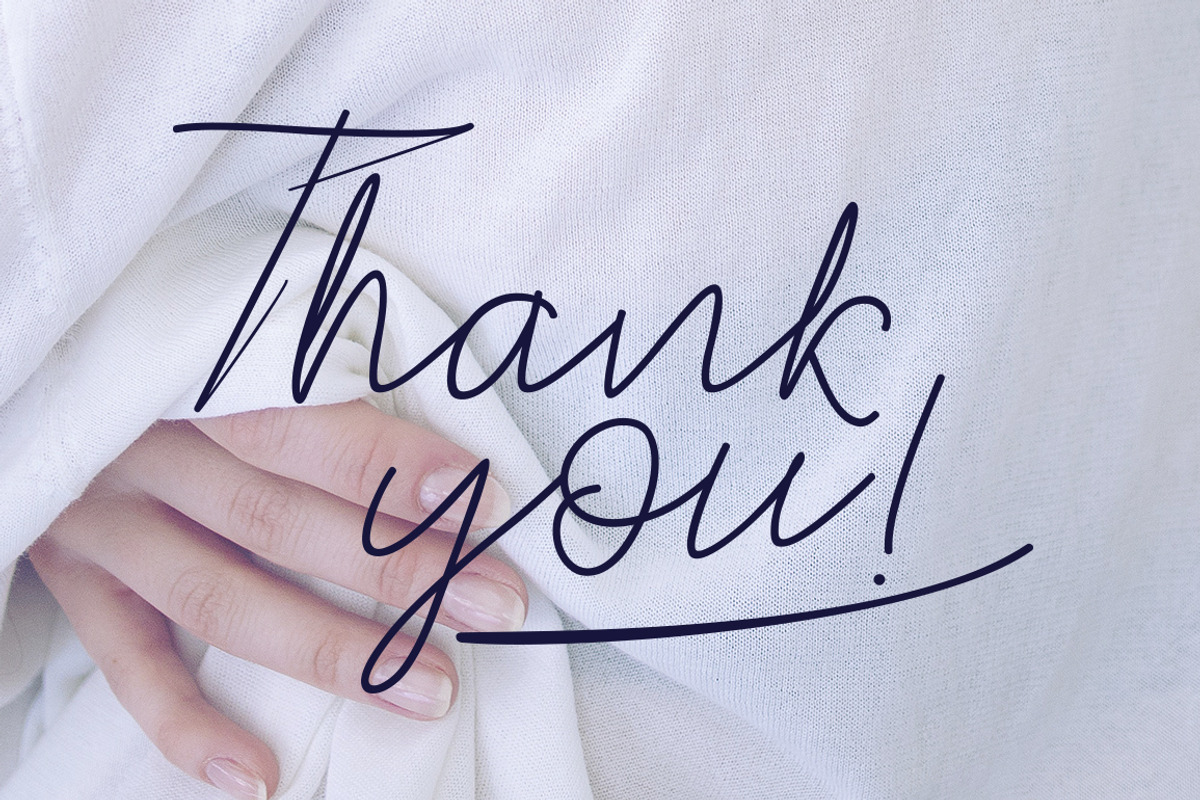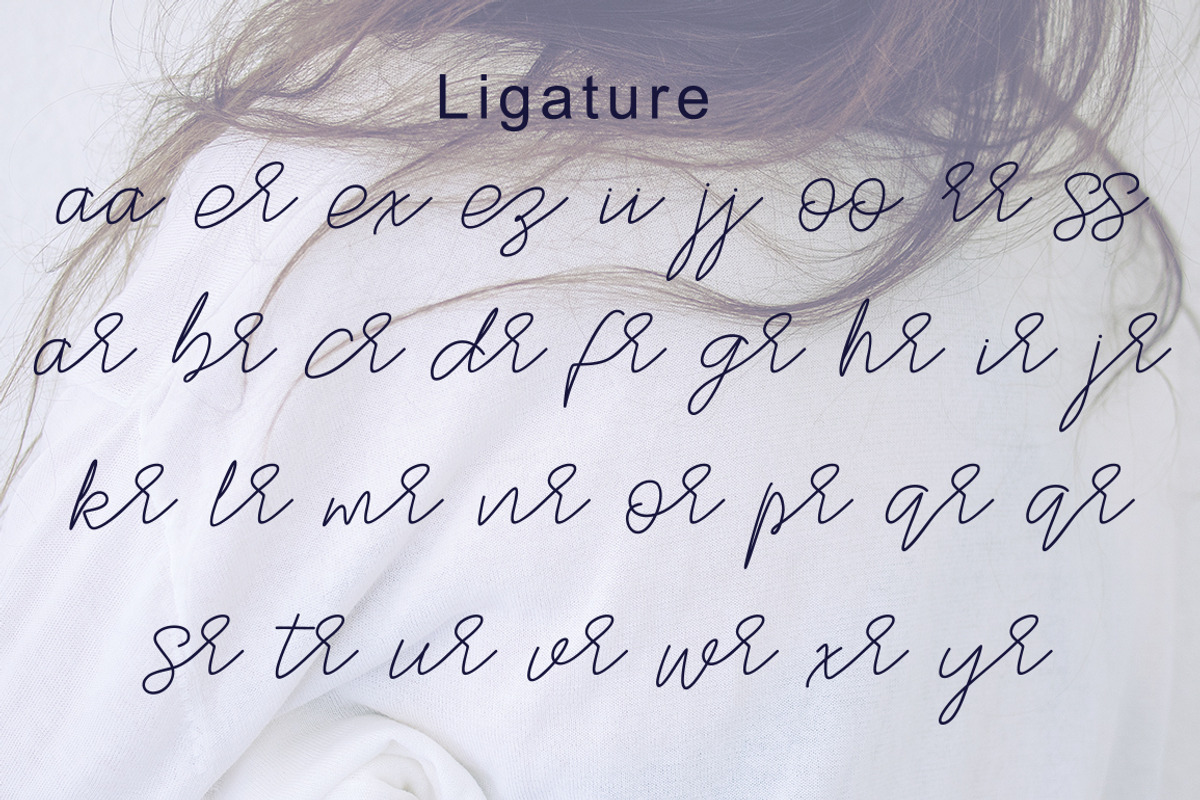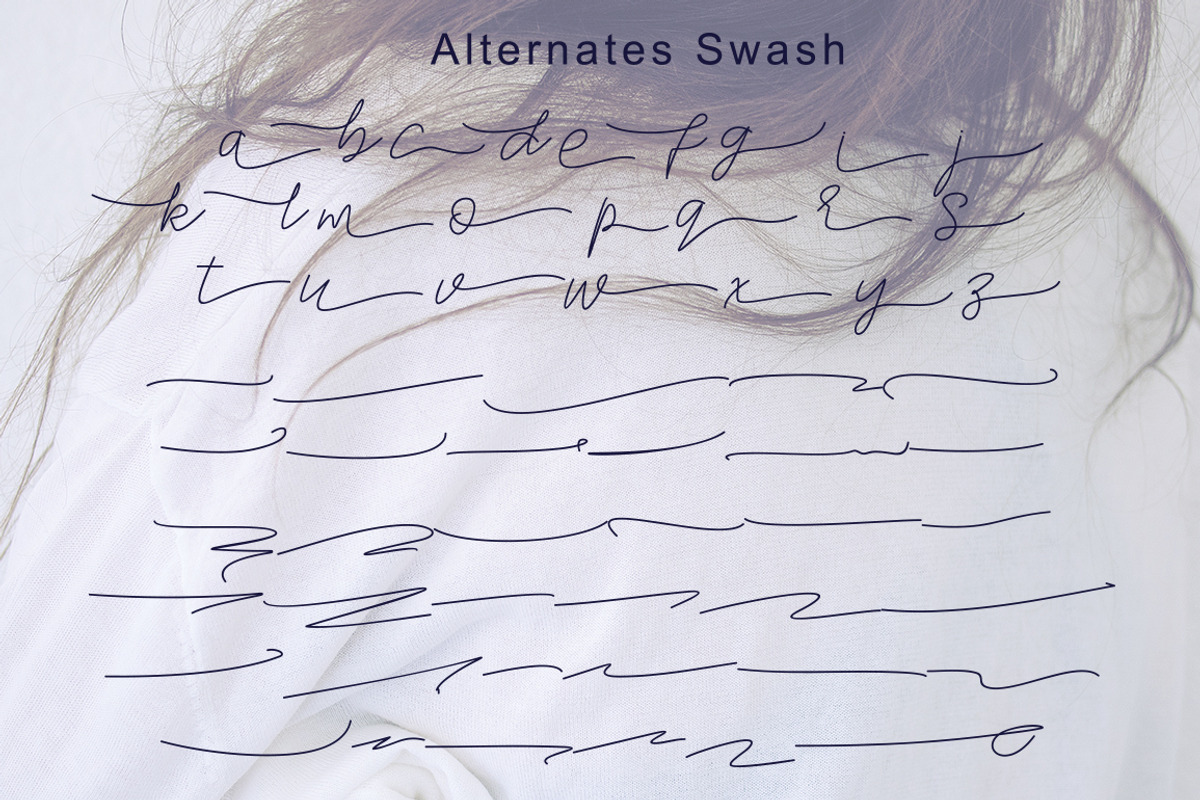
Stylish Script
Introducing
Stylish Script
Stylish Script a new fresh & modern script with a handmade calligraphy style, decorative characters and a dancing baseline! So beautiful on invitation like greeting cards, branding materials, business cards, quotes, posters, and more!!
Stylish Script come with 402 glyphs. The alternative characters were divided into several Open Type features such as Swash, Stylistic Sets, Stylistic Alternates, Contextual Alternates, and Ligature. The Open Type features can be accessed by using Open Type savvy programs such as Adobe Illustrator, Adobe InDesign, Adobe Photoshop Corel Draw X version, And Microsoft Word. And this Font has given PUA unicode (specially coded fonts). so that all the alternate characters can easily be accessed in full by a craftsman or designer.
Stylish Script Features :